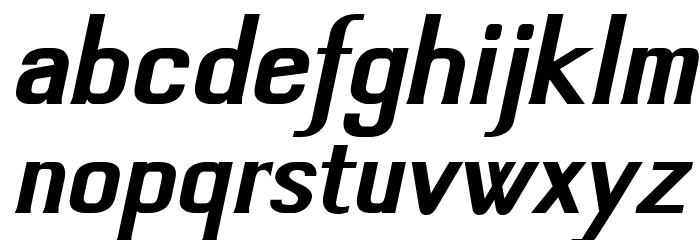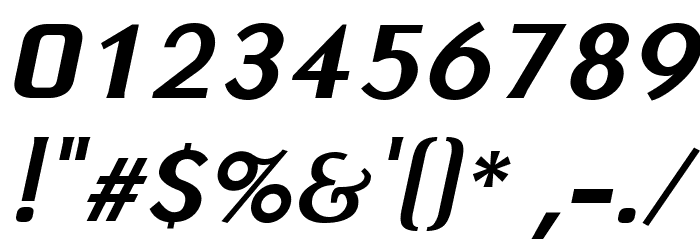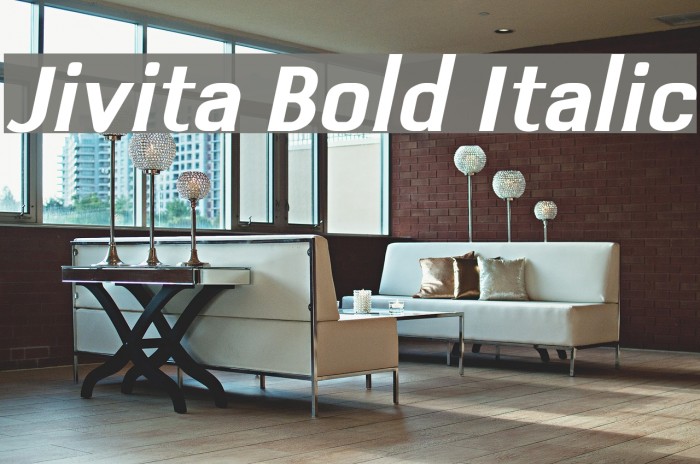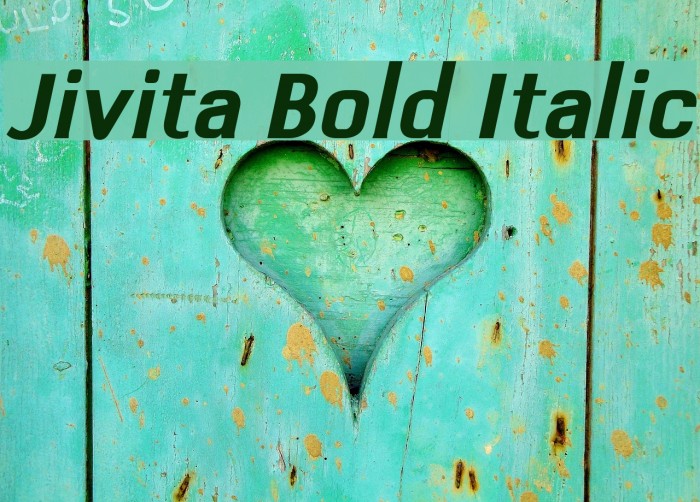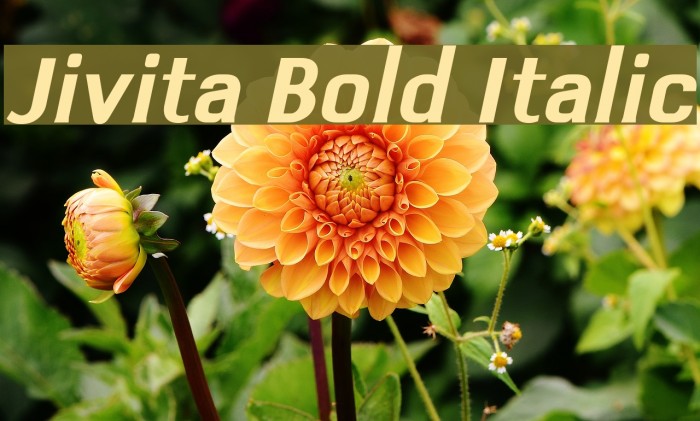
Jivita Bold Italic Font
This font features a bold and italicized style, characterized by its strong and dynamic slant. The letters are closely spaced, giving a compact and cohesive appearance. The strokes are thick and consistent, providing a sense of stability and strength. The uppercase letters are tall and commanding, while the lowercase letters maintain a smooth and flowing form. The numerals are clear and bold, ensuring readability. Special characters are designed with the same boldness, making them stand out effectively. This font is ideal for making a strong visual impact.
A bold and italicized font with strong, dynamic slant and thick strokes.
- Proposed Projects: Ideal for branding, headlines, posters, and any project requiring a bold statement.